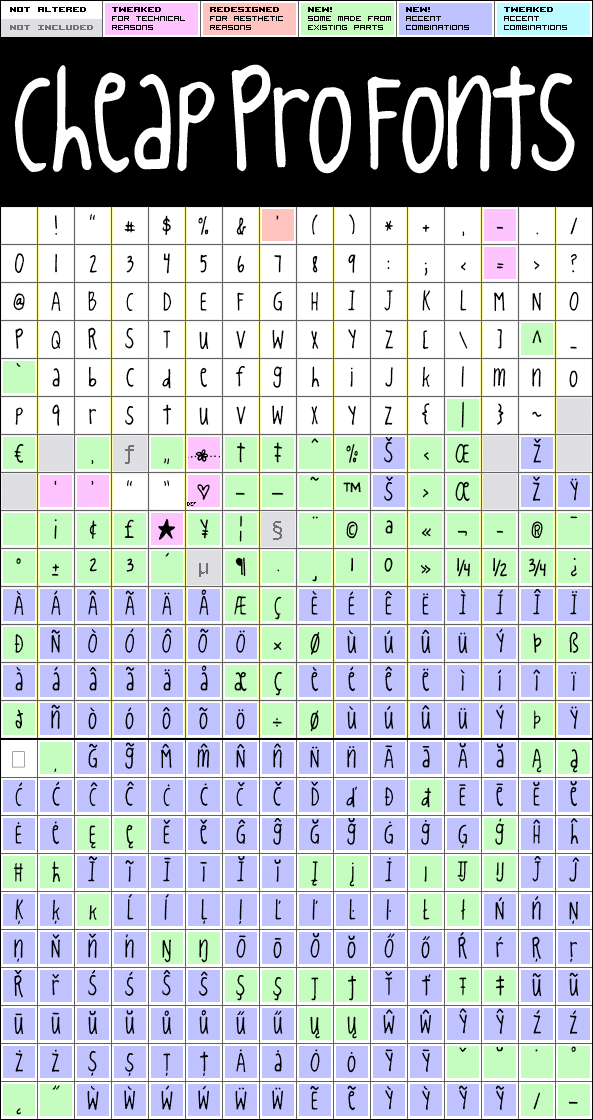
King Cool KC Pro
King Cool KC Pro by Kimberly Geswein
Kimberly Geswein
374 glyphs!
(99 in original)
532 class kernpairs
= 10240 kerning pairs
(none in original)
A funny and quirky handwritten script - with an original "monoheight" letter design. It is cute and adorable, and now available for setting text in most latin-based languages. :)
King Cool KC Pro is a professionally reworked font that contains an extended character set for setting text in 65 languages requiring more than the basic A-Z!